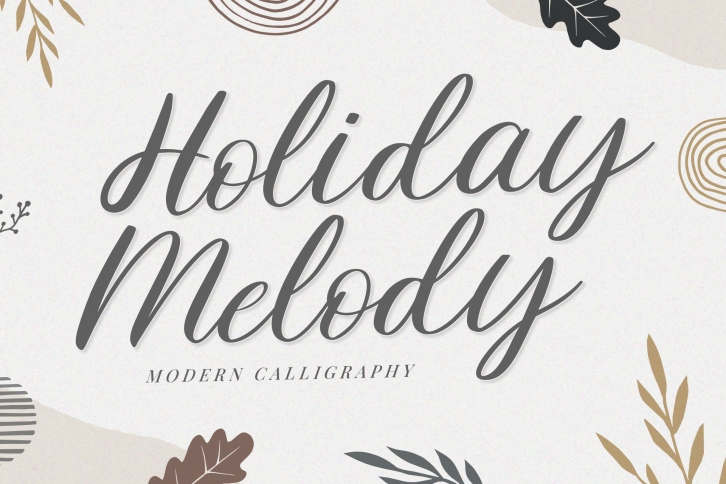
Holiday Melody is a lovely script font featuring charming, playful characters that seem to dance along the baseline. Add this font to your most creative ideas, and notice how it makes them stand out!